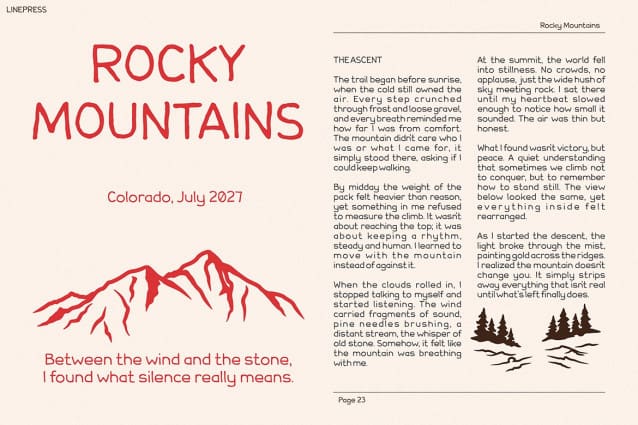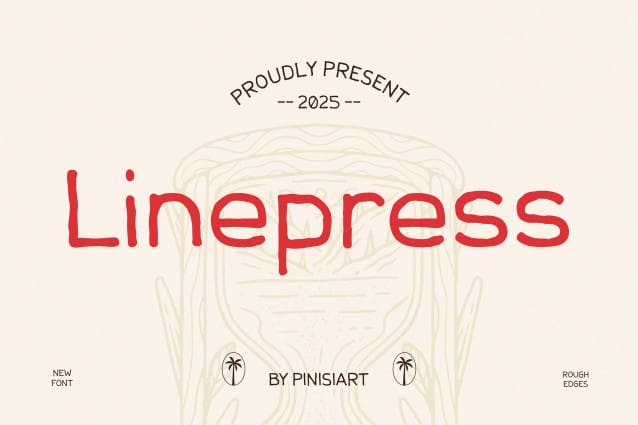
Linepress Font
Linepress Font is a beautifully balanced monoline handwritten sans font that blends nostalgic charm with clean modern geometry. Its crafted lines breathe life into every letter, evoking a sense of storytelling and adventure. Inspired by classic outdoor signage, vintage camp posters, and handcrafted diner menus, Linepress delivers a uniquely organic feel that’s both minimal and expressive. Every curve and stroke in this typeface feels intentional—made to capture the warmth of handwriting while maintaining professional clarity.
This font stands out for its simplicity, yet radiates personality. With elegant line weights, geometric proportions, and subtle retro aesthetics, Linepress becomes the perfect link between design nostalgia and modern branding needs. It’s not just another retro font—it’s a design statement that brings personality and readability together. Whether used in bold headlines or body text, Linepress adapts effortlessly while keeping that handcrafted charm alive.
Perfect For Creatives, Brands, and Storytellers
Retro Font Linepress is the go-to choice for designers, entrepreneurs, and makers who value authenticity in their visuals. It’s perfect for branding projects that aim to tell a story—from coffee shops and outdoor brands to minimalist lifestyle products. If your project needs a sense of warmth, freedom, or crafted elegance, Linepress helps you express it beautifully.
Use it for logo design, packaging, social media graphics, signage, editorial layouts, and adventure-themed branding. Its balanced monoline design ensures legibility even at smaller sizes, while its vintage touch creates instant recognition. Ideal for those working in the creative industry—illustrators, typographers, or marketing designers—who want their visuals to carry emotional depth and handmade appeal.
With uppercase, lowercase, numerals, punctuation, and multilingual support, Linepress is both functional and flexible. It’s made to perform across digital and print environments, ensuring consistent style and readability everywhere you use it.
Bring Your Story to Life with Linepress
Give your designs the power to speak with warmth, character, and soul. Retro Font Linepress isn’t just a typeface—it’s a design companion that brings out the storyteller in you. Whether for personal projects or professional branding, its handcrafted precision and geometric charm make every word feel alive.